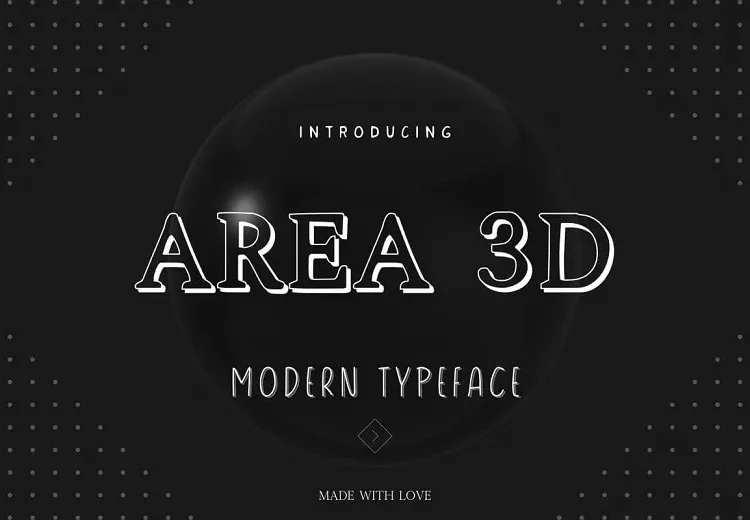
Area 3D Font
AREA 3D is a vibrant and playful display font that combines artistic flair with a sophisticated 3D effect. Perfectly suited for projects aimed at a youthful audience, this font brings a lively and engaging feel to any design.
AREA 3D includes both capital and lowercase letters, numbers, punctuation, and symbols, and supports Latin extended characters. Its versatile design makes it an excellent choice for a variety of applications, including slideshows, logos, fun invitations, greeting cards, t-shirts, labels, badges, and subtitles.
Ideal for branding, craft designs, packaging, headlines, magazine layouts, and even love letters, AREA 3D adds a touch of fun and creativity to any project. Its distinctive 3D effect ensures that your designs stand out and capture attention.